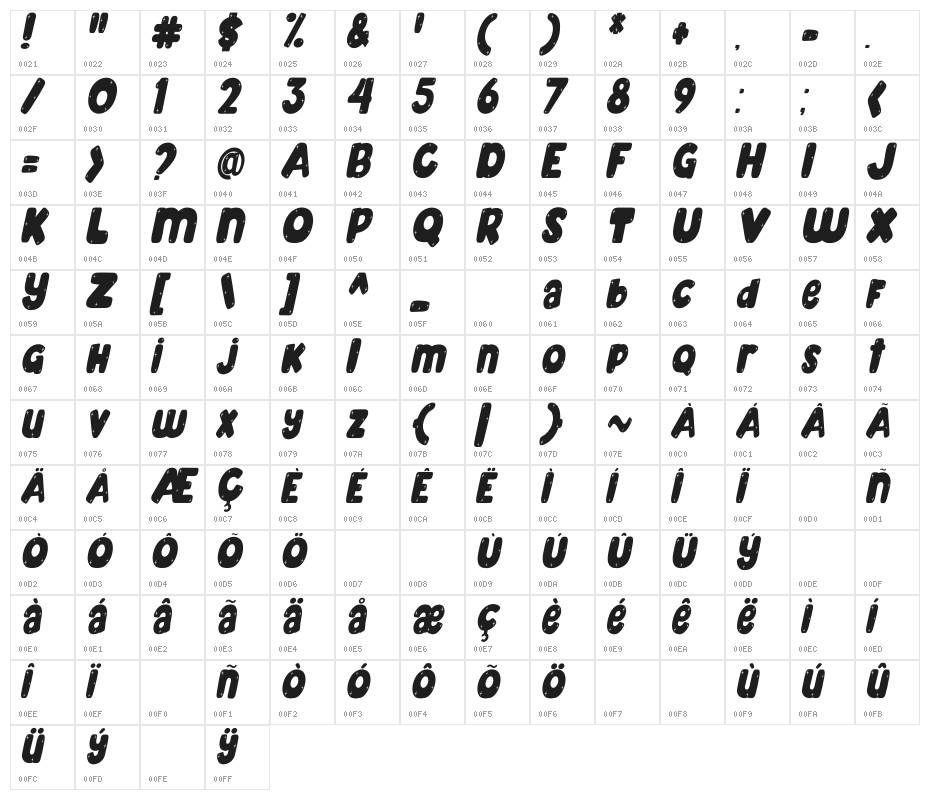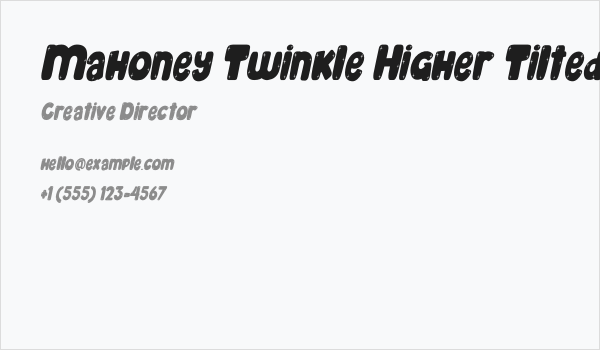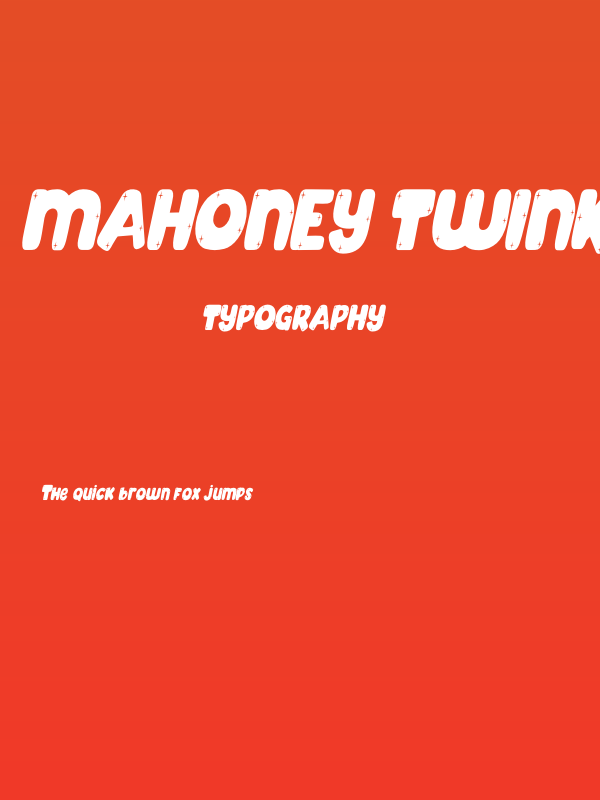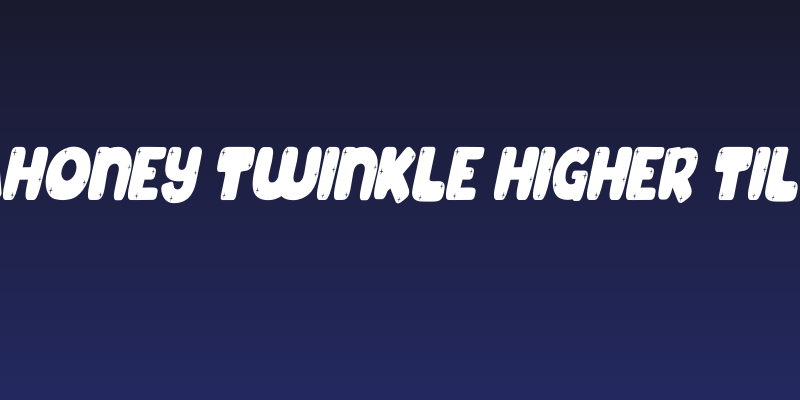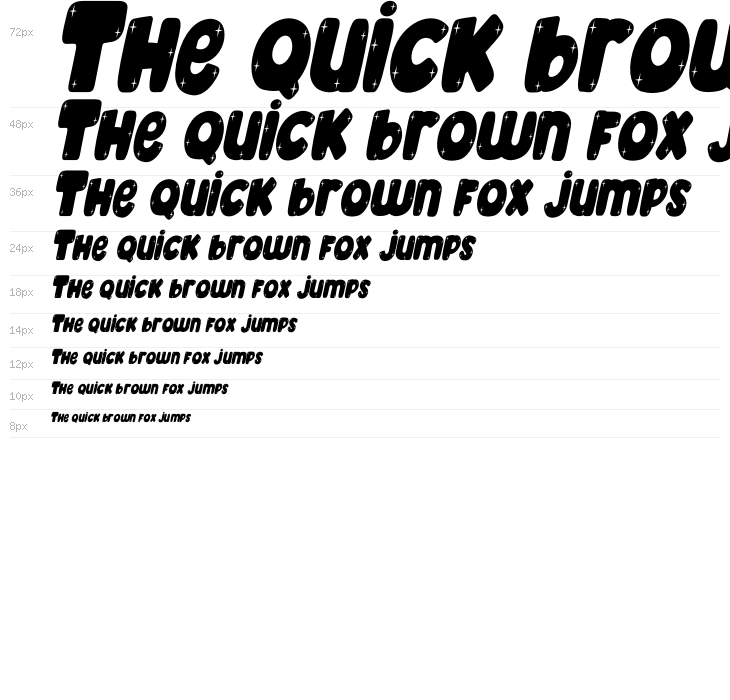
Mahoney Twinkle Higher Tilted Font
Mahoney Twinkle Higher Tilted Description
This font features a bold and playful design with a unique textured appearance. The characters are rounded and thick, giving a sense of fun and creativity. The texture includes small star-like shapes scattered across the letters, adding a whimsical touch. The overall style is decorative and eye-catching, making it suitable for projects that require a lively and engaging typeface. The font maintains a consistent weight throughout, ensuring readability while still offering a distinct visual appeal. Its boldness and decorative elements make it ideal for headlines and attention-grabbing text.
| Overall Style | Playful, Decorative |
| Proposed Projects | Ideal for children's books, party invitations, posters, and playful branding. |